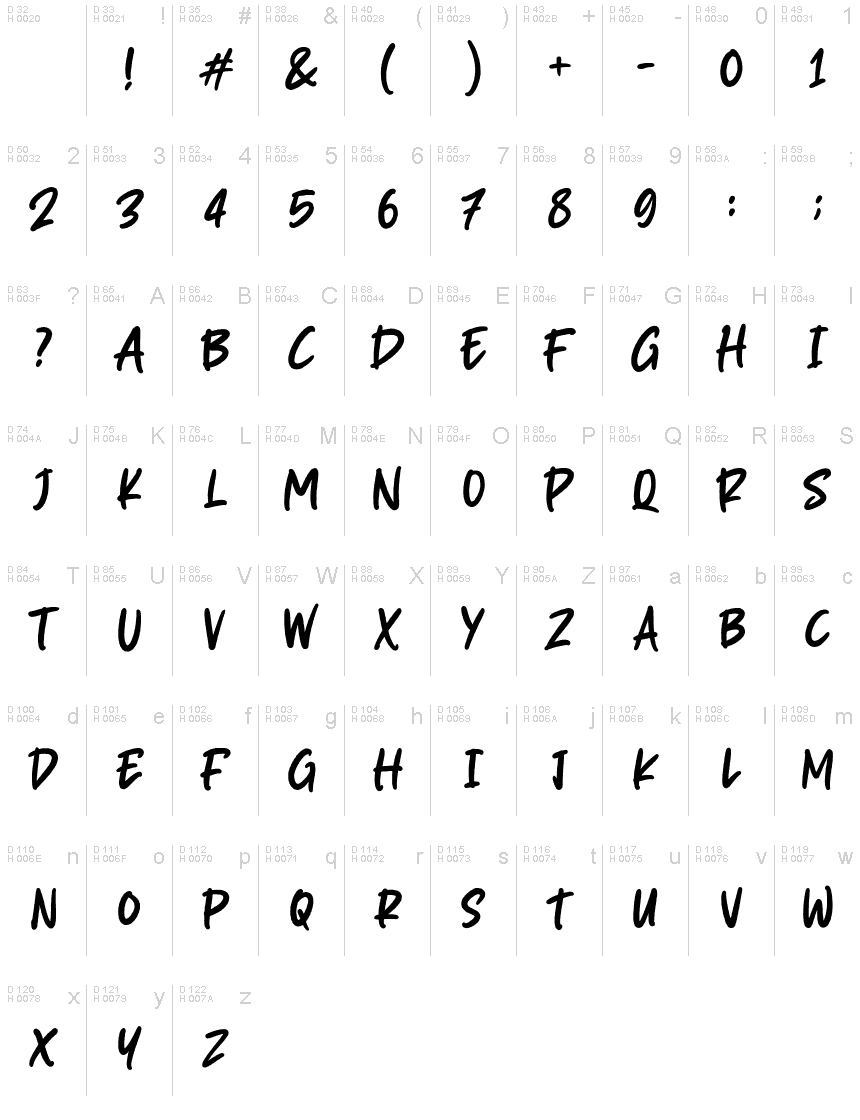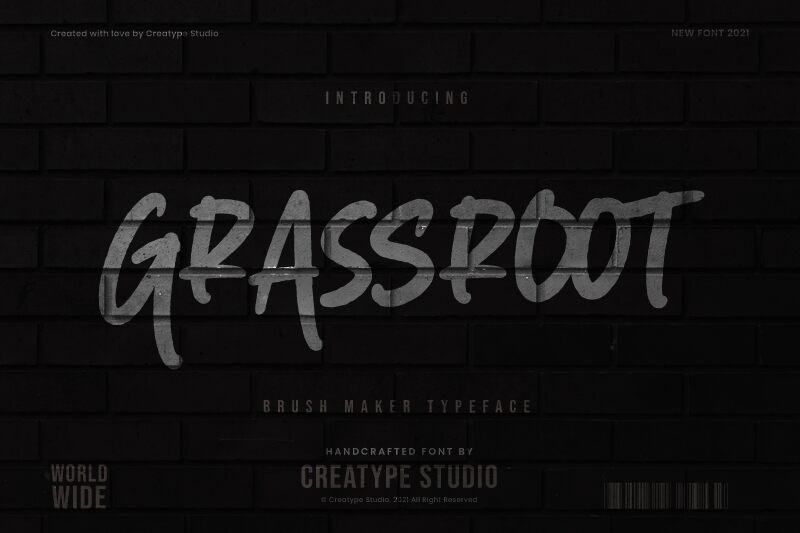
Grassroot
Grassroot, the latest creation by Rian Rahardi, is a handwritten marker font that exudes a casual yet professional vibe. Its unique style is perfect for projects that require an organic touch, such as eco-friendly campaigns or farm-to-table restaurant menus. With its playful curves and rough edges, Grassroot adds a touch of personality to any design while maintaining legibility. Whether you're creating posters for a music festival or designing packaging for a boutique coffee brand, Grassroot is the perfect choice to elevate your project and make it stand out.